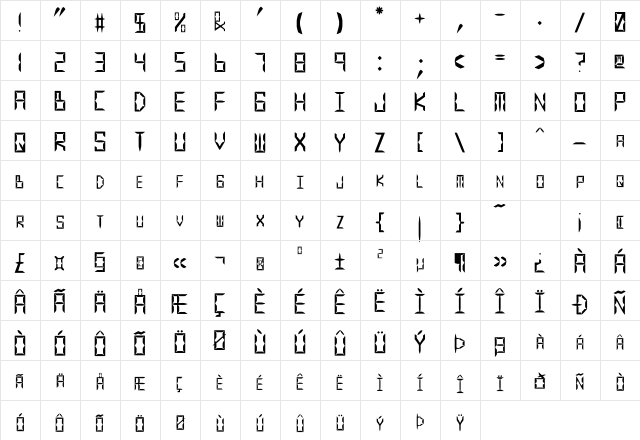
Legitimate Crystal Display Regular
Design Context for Legitimate Crystal Display Typeface
Legitimate Crystal Display is built around its visual character rather than neutral utility — its distinctive forms are designed to make an impression at display sizes.
Font Pairing: Pair with a clean neutral sans-serif for body copy to let Legitimate Crystal Display's character lead without overwhelming the composition.
Pro Tip: Use Legitimate Crystal Display exclusively at display sizes — it was designed to be seen, not read at length. Let a neutral companion handle body copy.